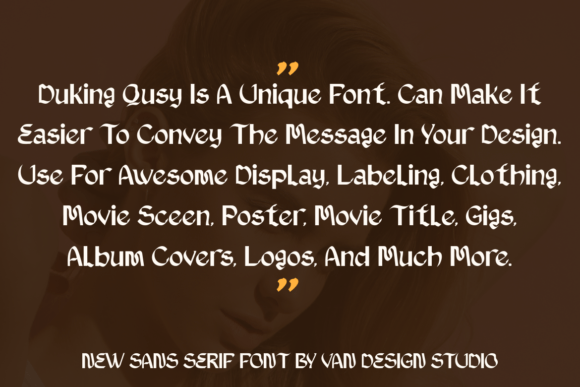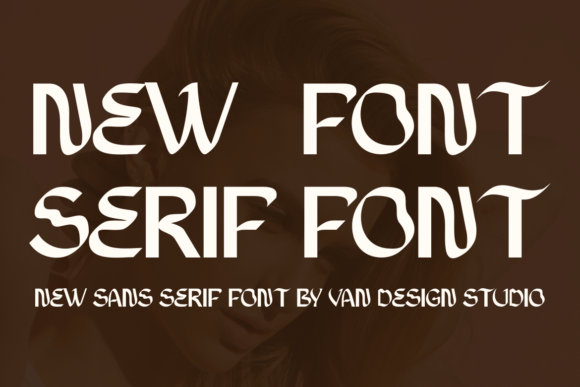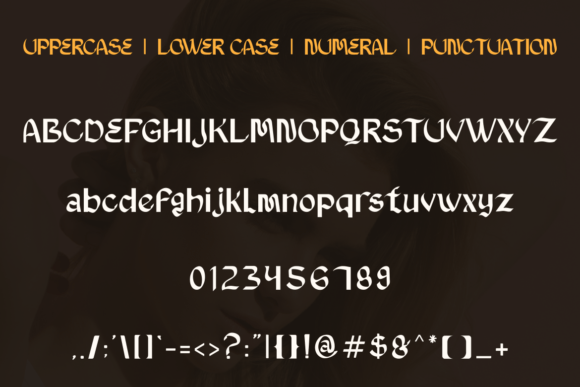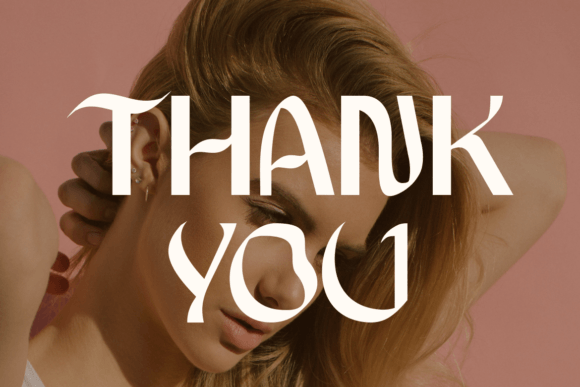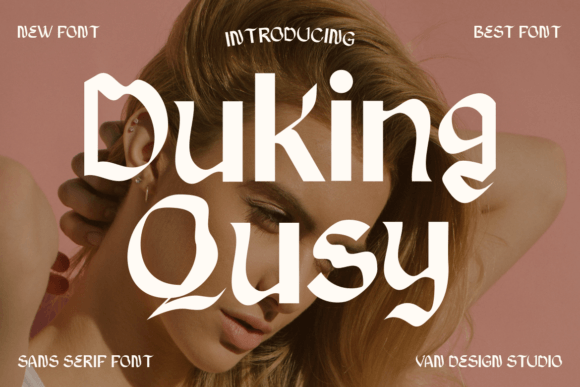
Duking Qusy Font: Elevate Your Designs with Elegance and Boldness
Are you on the hunt for a font that exudes sophistication, elegance, and a touch of boldness? Look no further than the Duking Qusy font. This stunning serif font is making waves in the design community, and for good reason. Its incredibly versatile style makes it perfect for a wide range of projects, from wedding invitations and stationery to social media posts and more.
The Characteristics of Duking Qusy Font
Duking Qusy is a masterclass in font design. Its serif style gives it a classic, timeless feel that’s perfect for designs that require a touch of sophistication. But what really sets Duking Qusy apart is its boldness. This font is not afraid to make a statement, and its confident lines and elegant curves make it perfect for designs that need to stand out from the crowd.
Uses for Duking Qusy Font
So, what can you use Duking Qusy for? The possibilities are endless! Here are just a few ideas to get you started:
• Wedding Invitations: Duking Qusy is perfect for wedding invitations, with its elegant and sophisticated style setting the tone for a beautiful and memorable day.
• Stationery: Whether you’re designing stationery for a business or personal use, Duking Qusy is a great choice. Its bold lines and elegant curves make it perfect for creating beautiful and professional-looking stationery.
• Social Media Posts: Want to make your social media posts stand out from the crowd? Duking Qusy is a great choice. Its bold and elegant style makes it perfect for creating eye-catching posts that will grab your audience’s attention.
• Signage: Duking Qusy is also perfect for signage, with its bold lines and elegant curves making it easy to read and visually appealing.
Why Choose Duking Qusy Font?
So, why choose Duking Qusy over other fonts? Here are just a few reasons:
• Versatility: Duking Qusy is incredibly versatile, making it perfect for a wide range of projects and designs.
• Elegance: Duking Qusy exudes elegance and sophistication, making it perfect for designs that require a touch of class.
• Boldness: Duking Qusy is not afraid to make a statement, with its bold lines and elegant curves making it perfect for designs that need to stand out.
• Easy to Read: Despite its bold style, Duking Qusy is easy to read, making it perfect for designs that require a clear and concise message.
Tips for Using Duking Qusy Font
Here are a few tips for using Duking Qusy effectively:
• Use it sparingly: Duking Qusy is a bold font, so use it sparingly to avoid overwhelming your design.
• Pair it with other fonts: Duking Qusy pairs well with other fonts, so don’t be afraid to experiment with different combinations.
• Experiment with different sizes: Duking Qusy looks great in a variety of sizes, so experiment with different sizes to find the one that works best for your design.
In conclusion, Duking Qusy is an elegant and bold serif font that’s perfect for designers and crafters looking to elevate their designs. Its incredibly versatile style makes it perfect for a wide range of projects, from wedding invitations and stationery to social media posts and more. With its bold lines, elegant curves, and easy-to-read style, Duking Qusy is a great choice for anyone looking to add a touch of sophistication and elegance to their designs.